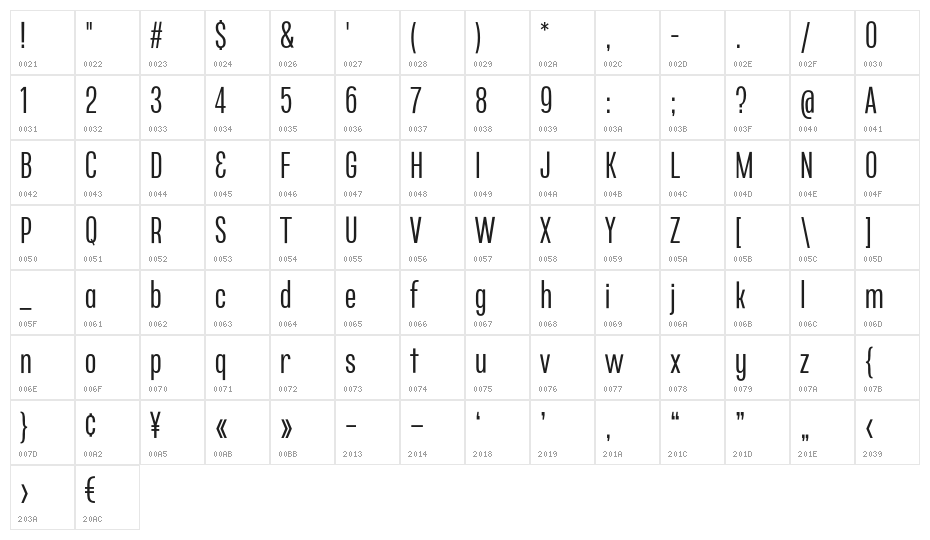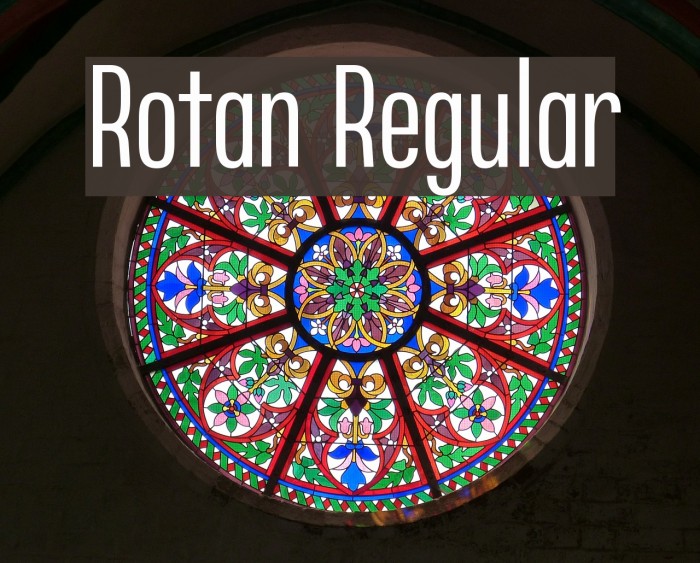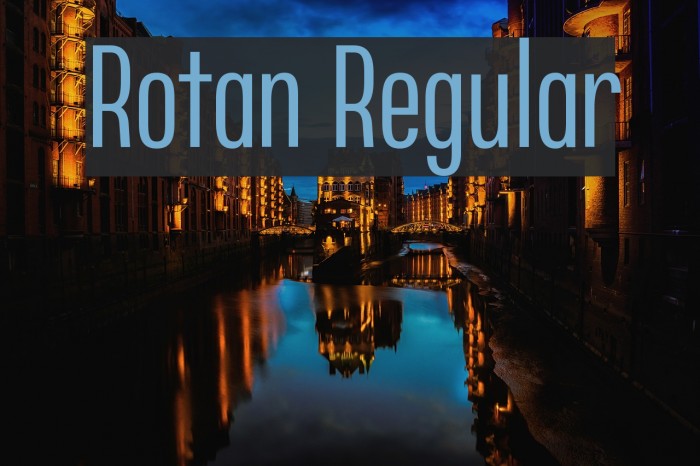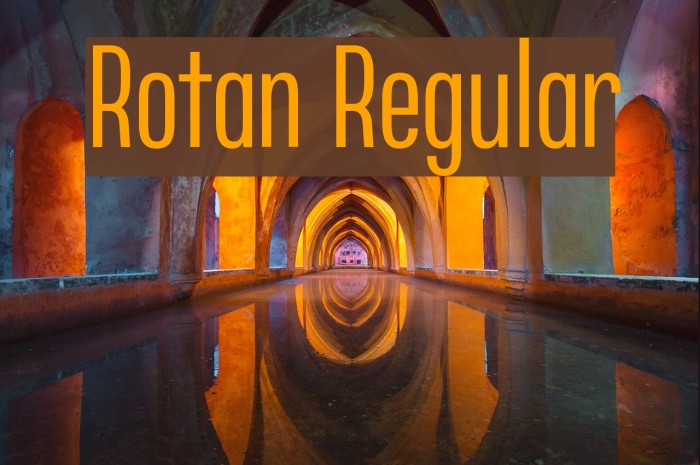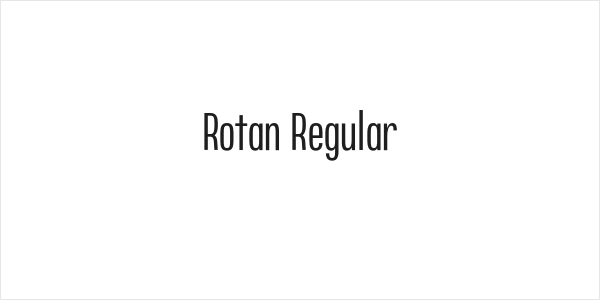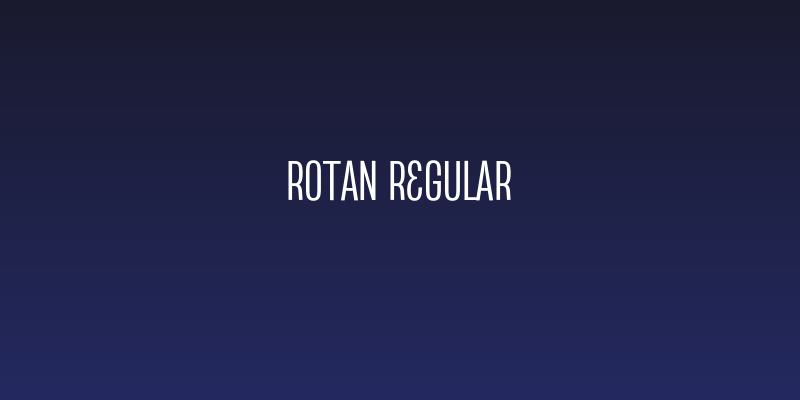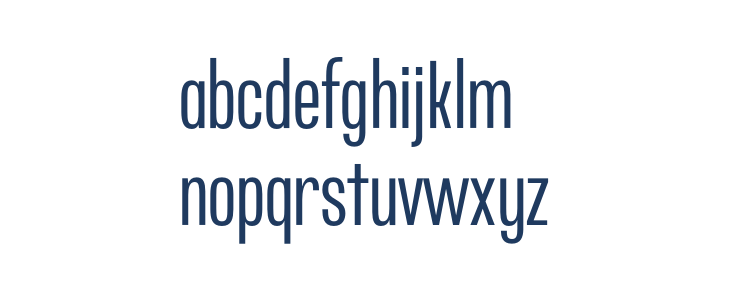
Rotan Regular Font
Rotan Regular Description
This font features a clean and modern sans-serif design with a tall, narrow structure. The characters are uniformly aligned with consistent stroke widths, creating a sleek and professional appearance. The uppercase letters are bold and commanding, while the lowercase letters maintain a balanced and approachable look. The numerals are clear and easily distinguishable, making them suitable for various applications. Special characters are well-integrated, enhancing the font's versatility. Overall, this font exudes a contemporary and sophisticated vibe, ideal for projects requiring a modern touch.
| Use Case | Headlines, Logos, Web design |
| Proposed Projects | Ideal for branding, advertising, web design, and editorial projects. |